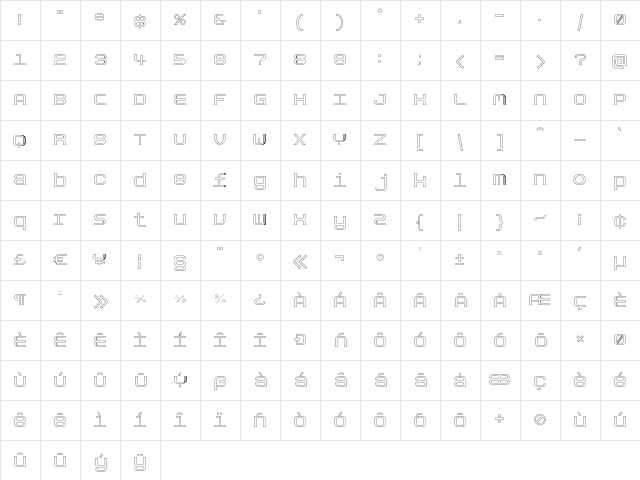
Aspirin-Refill-Irregular Regular
Design Context for Aspirin-Refill-Irregular Typeface
Aspirin-Refill-Irregular offers clean, dependable letterforms without strong stylistic allegiance, making it a practical choice for designers who need flexibility.